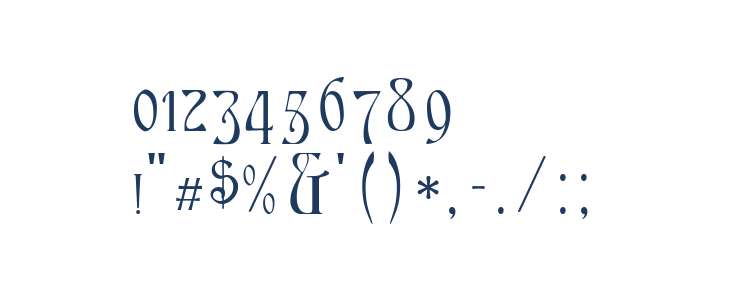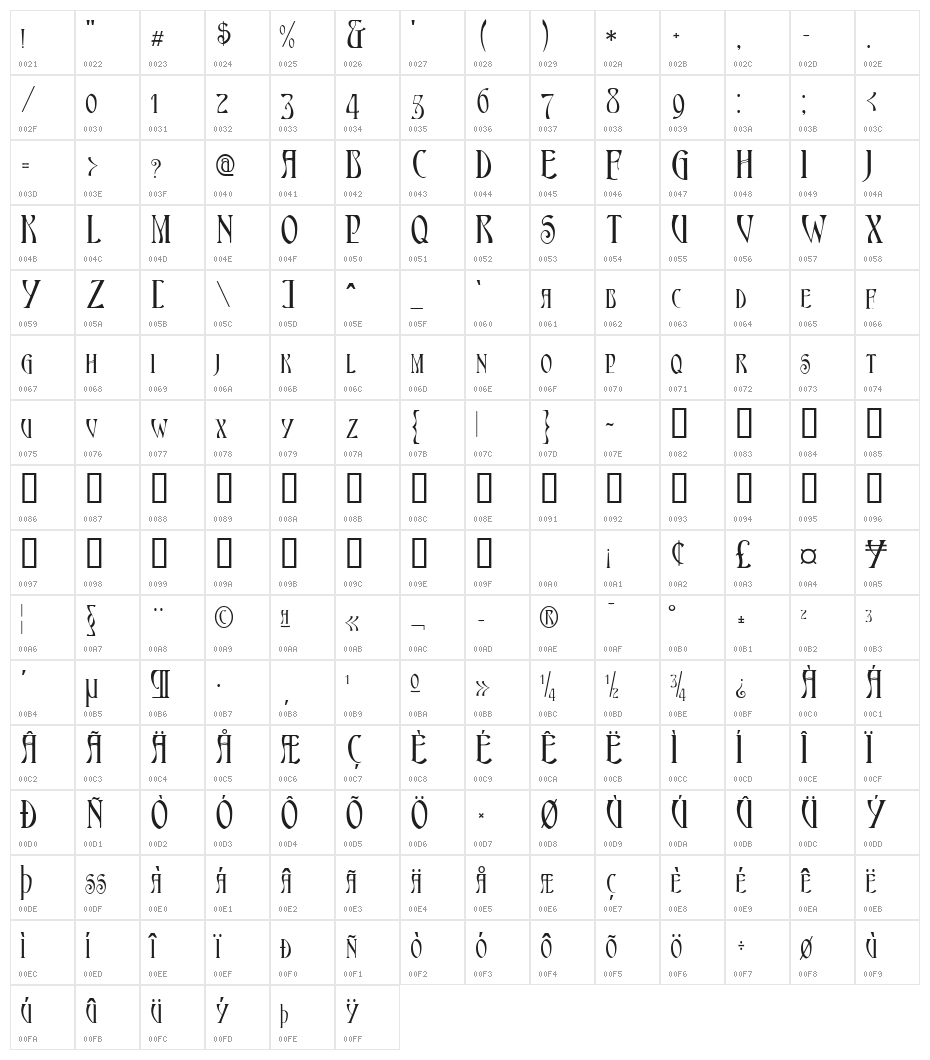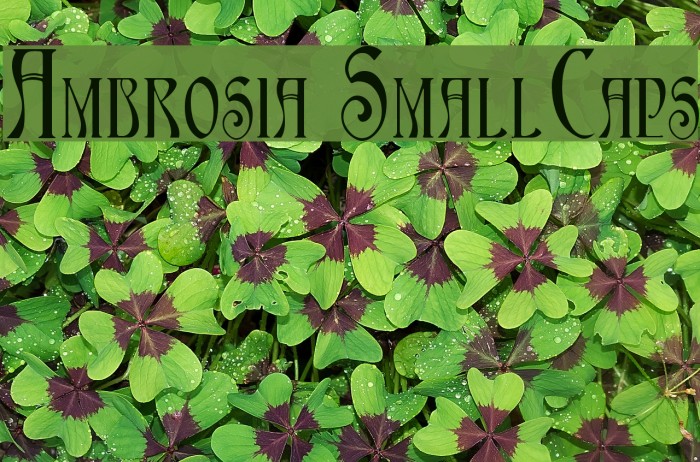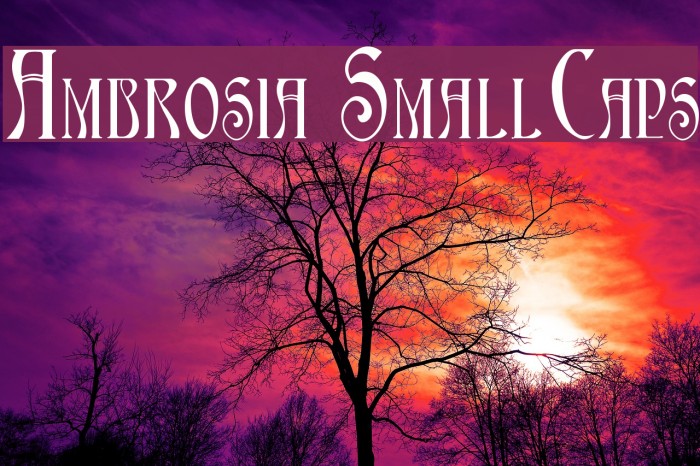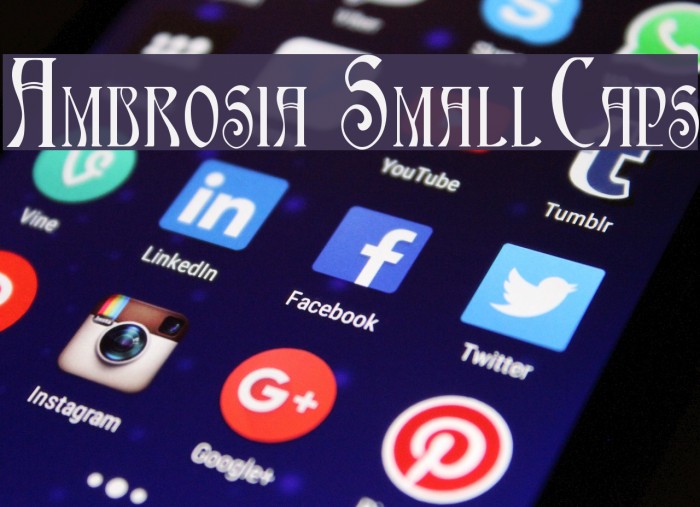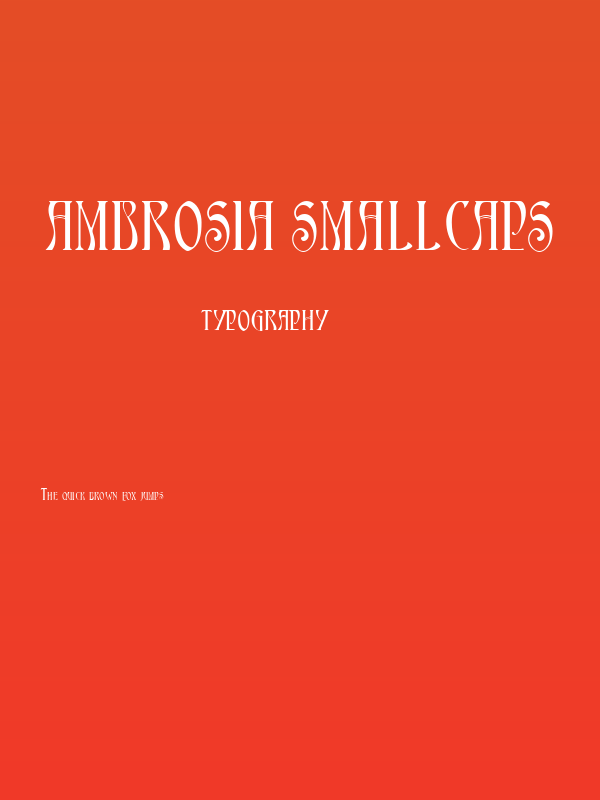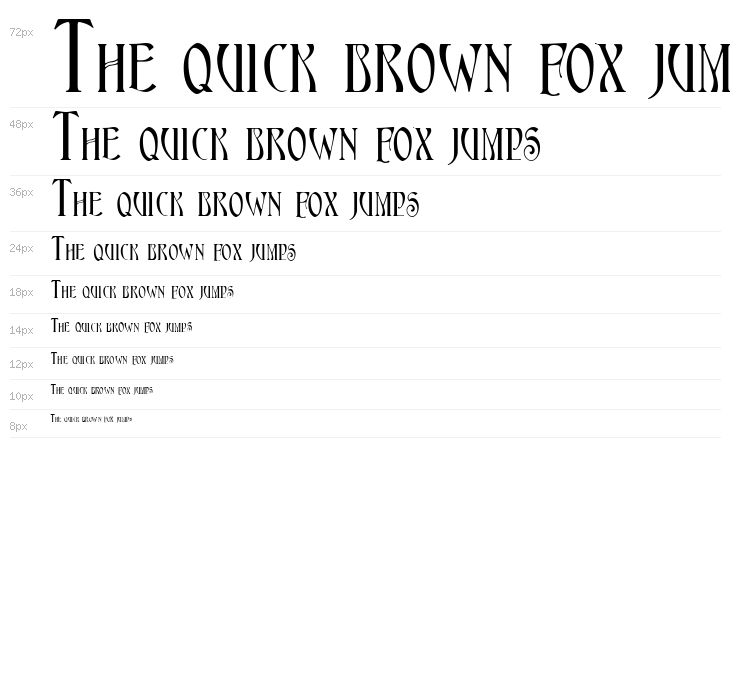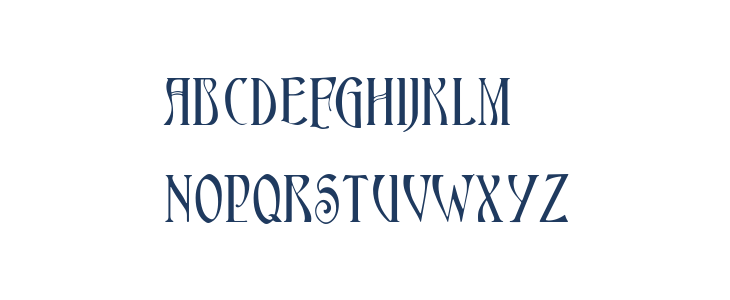
Ambrosia SmallCaps Font
Ambrosia SmallCaps Description
This font features a unique blend of elegance and artistic flair, characterized by its decorative and slightly whimsical letterforms. The uppercase letters exhibit a distinct style with varying stroke widths and subtle curves, giving them a sophisticated yet playful appearance. The lowercase letters maintain a consistent design, complementing the uppercase with their own charm. The numerals are crafted with the same attention to detail, ensuring readability while maintaining the font's overall aesthetic. Special characters are thoughtfully designed to match the font's style, making it suitable for creative and expressive projects.